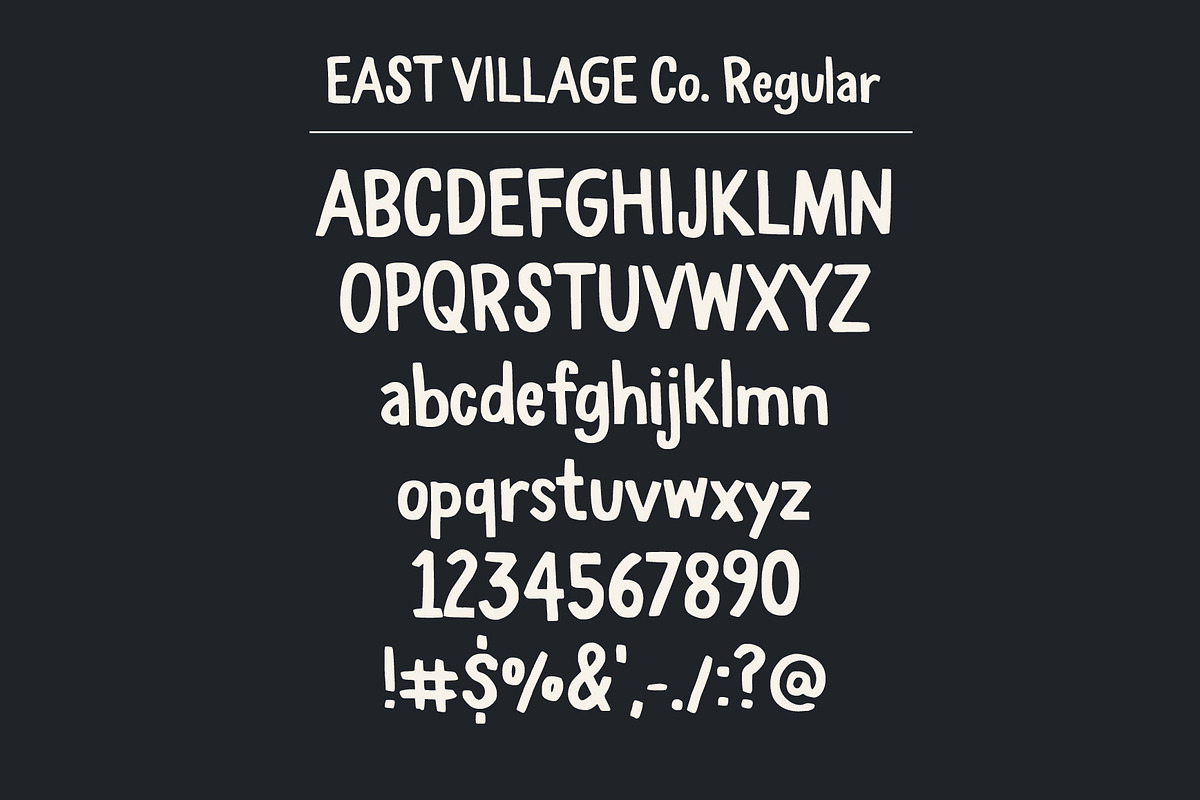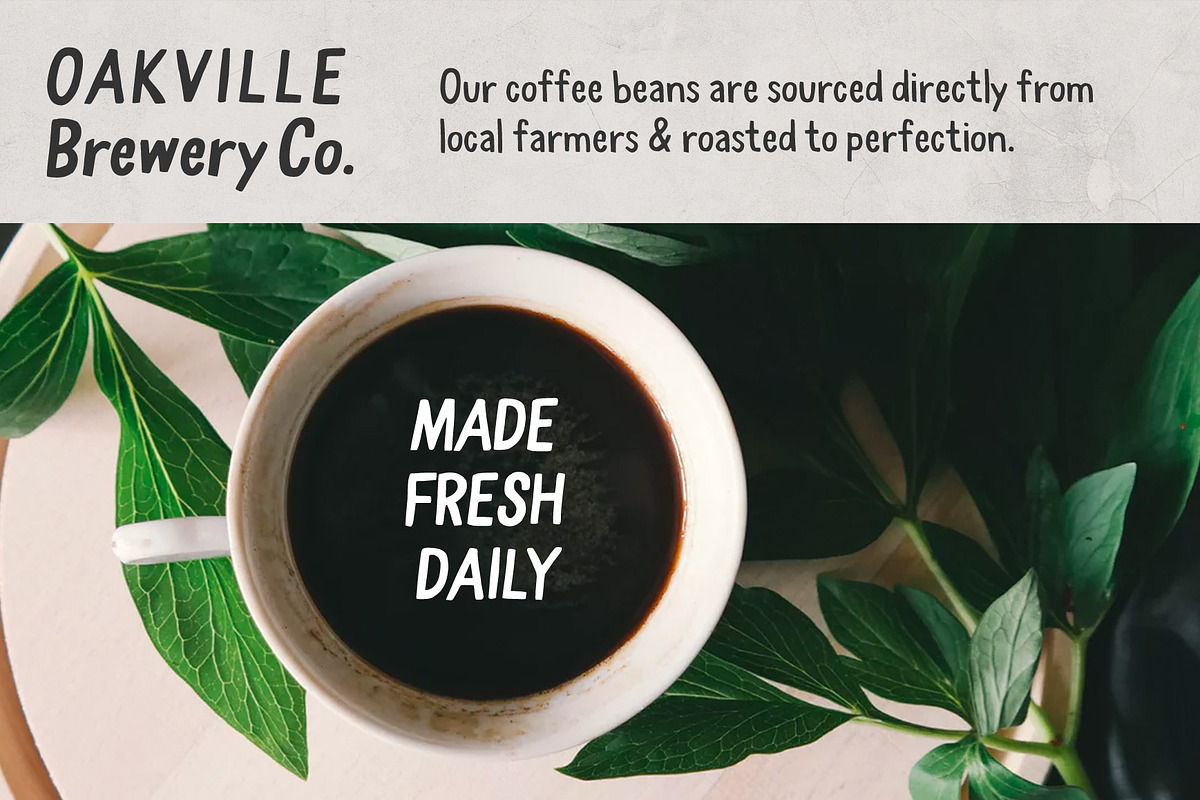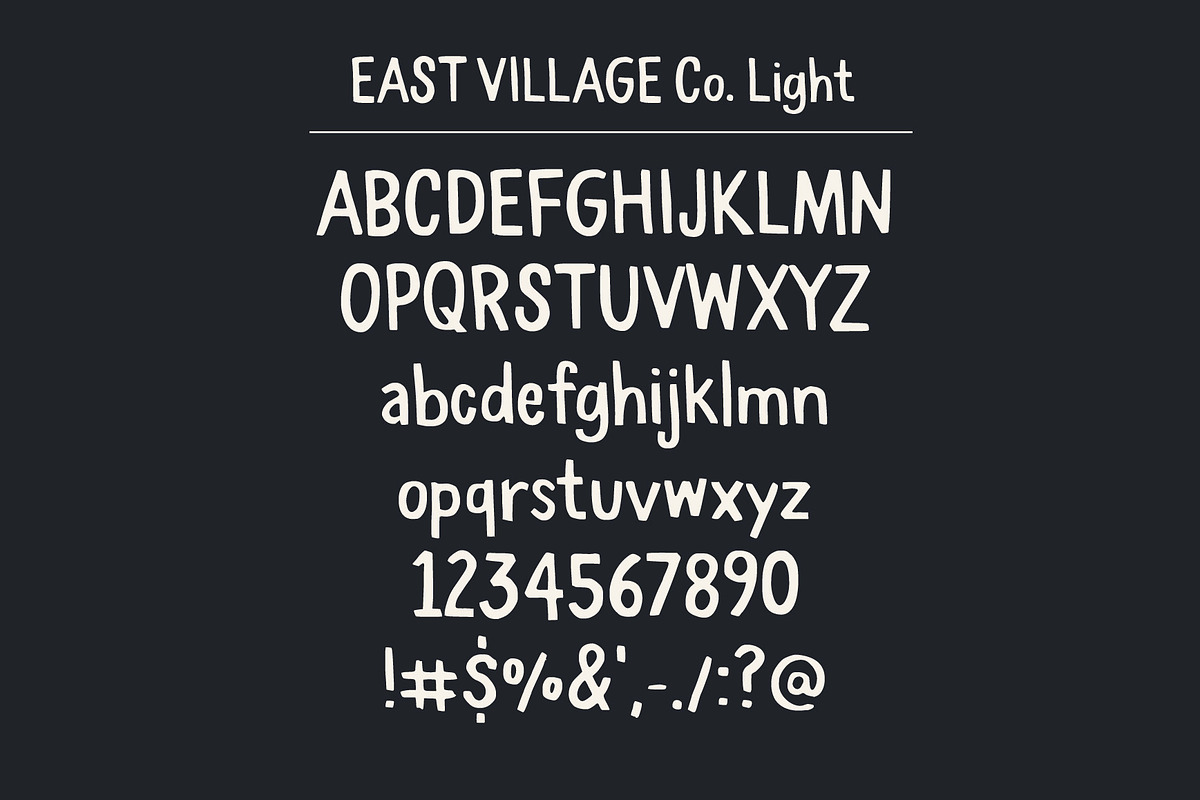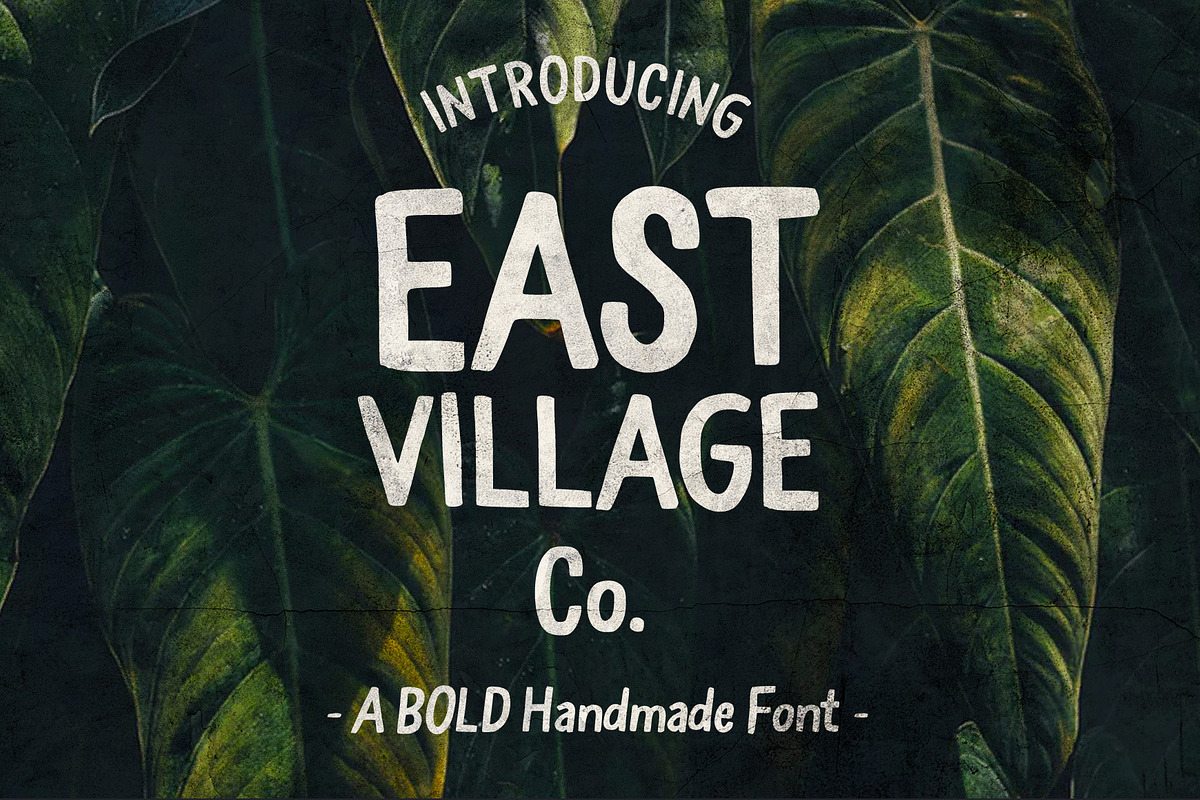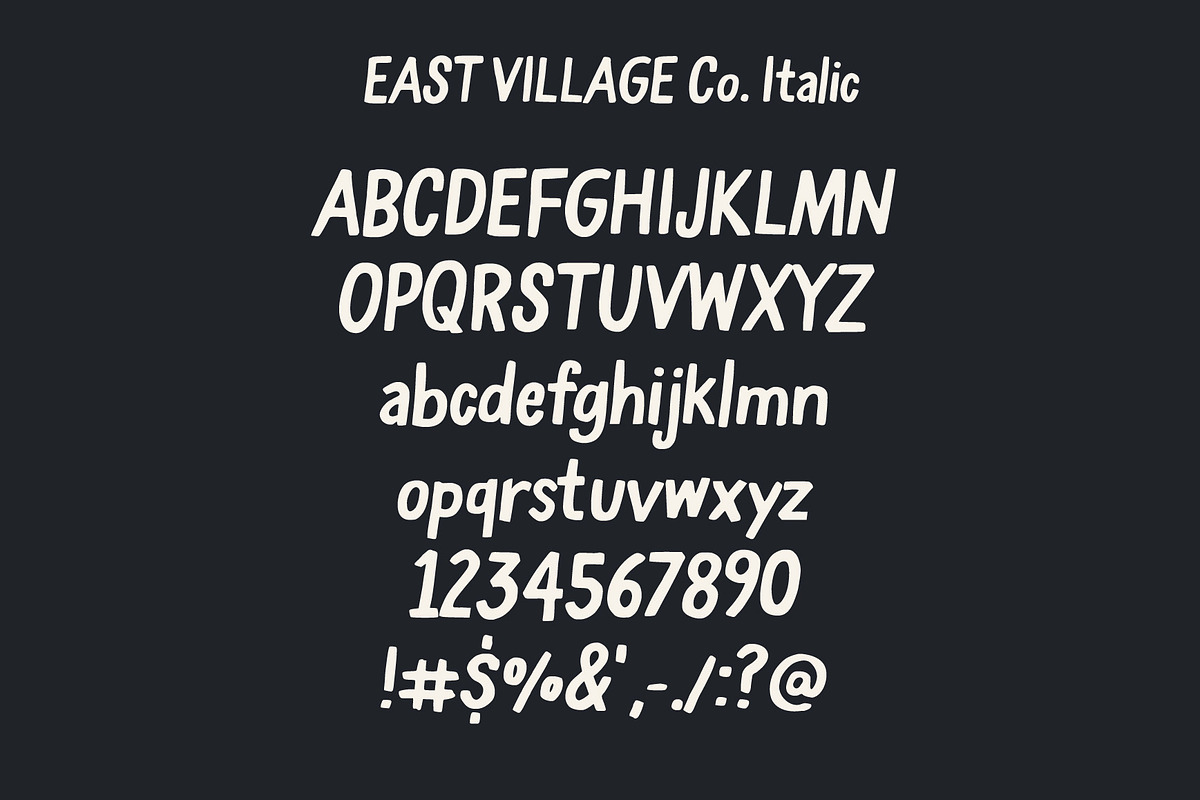
East Village Bold Handwritten Font
East Village Co. is a bold handwritten font that can be used in an all caps style, or with upper and lowercase letters. Originally created with a square-tipped brush, this font family adds a handmade and friendly touch to your projects (such as branding/logos, social media posts, invitations, and more!)
East Village Co. Regular
East Village Co. Italic
East Village Co. Light
A-Z Upper and lowercase included, numbers, and limited punctuation set - see images for included character set, or test below.